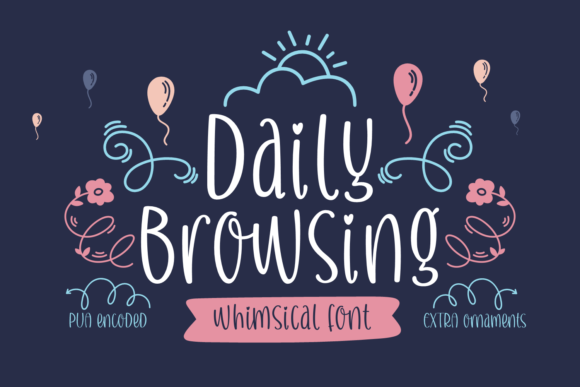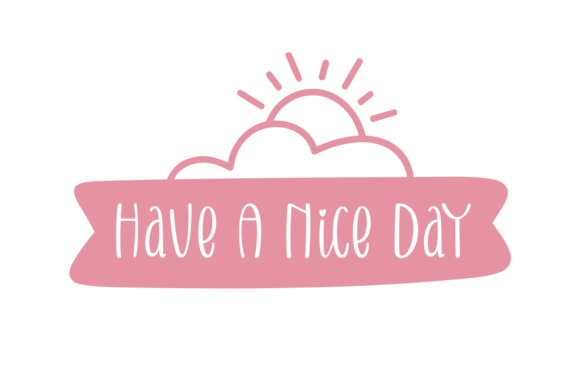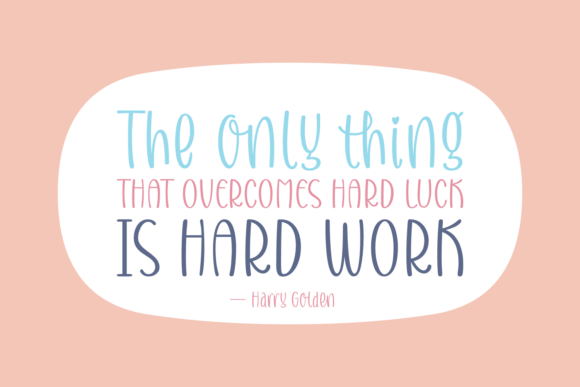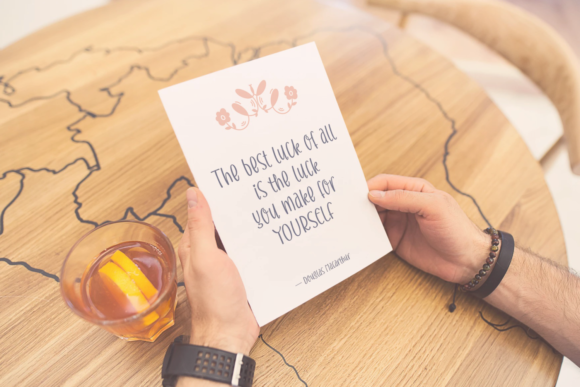
Daily Browsing Font
About Daily Browsing Font
Daily Browsing is an equally sweet and charming handwritten font with an elegant twist. Get inspired by this one-of-a-kind typeface!